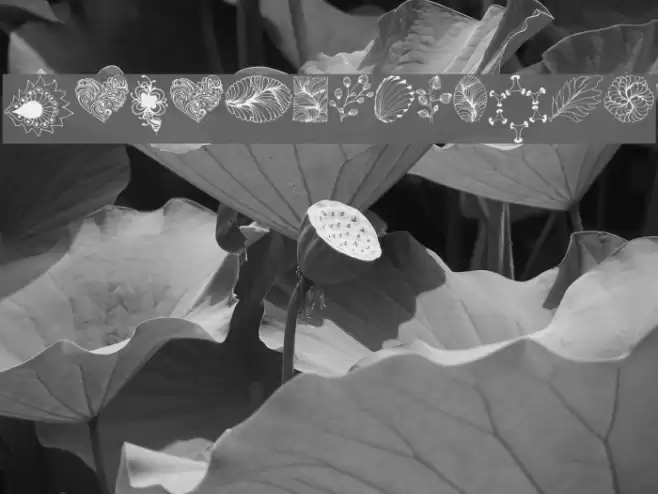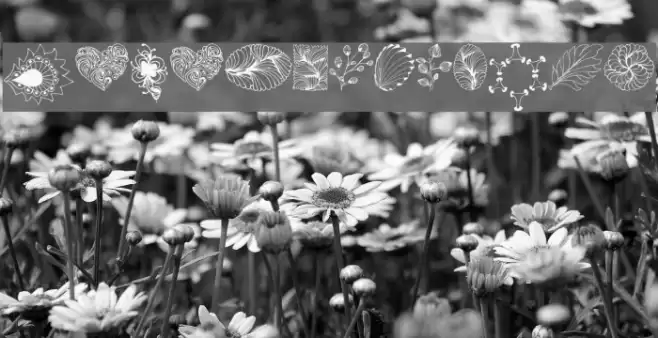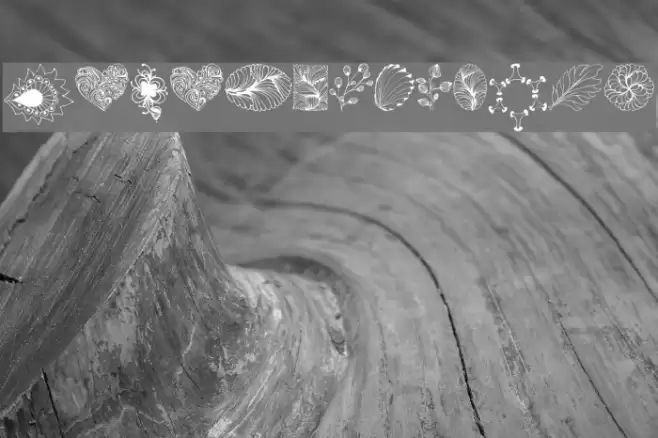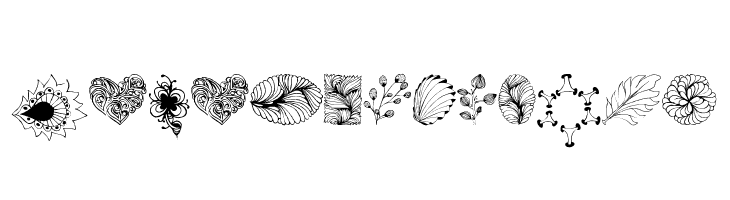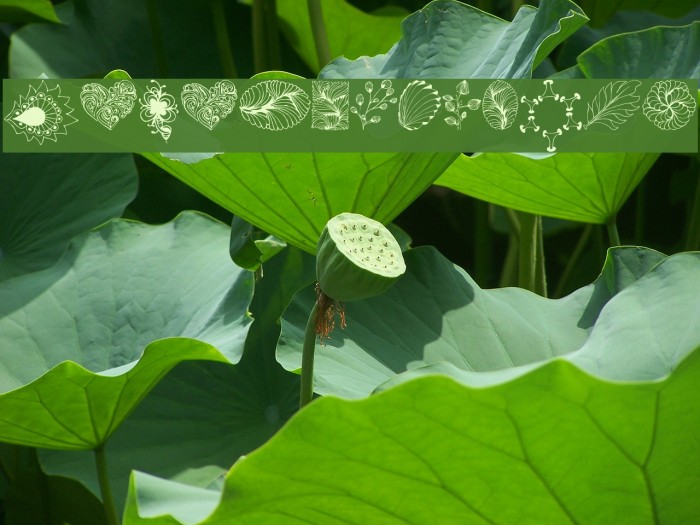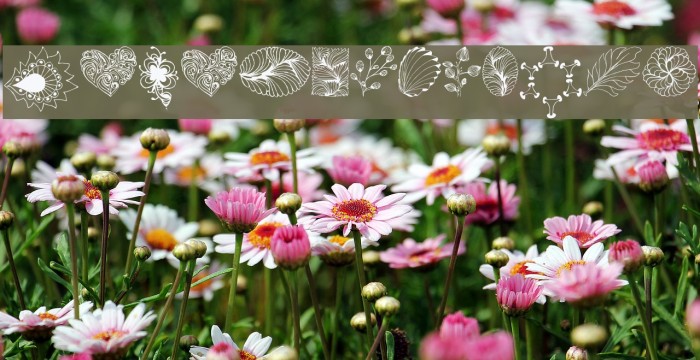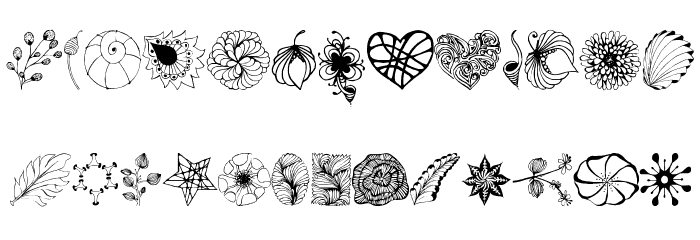
DigiStampsOne Font
DigiStampsOne Description
A decorative dingbat set featuring hand-drawn botanical and abstract motifs, including flowers, leaves, shells, hearts, and whimsical patterns, rendered in fine black lines with intricate detailing.
Hand-drawn botanical and abstract dingbat collection from Uncategorized fonts.
- Proposed Projects: Scrapbooking, invitations, greeting cards, decorative borders, digital stamps, craft projects.
- Overall Style: Decorative, Hand-drawn, Whimsical
- Use Case: Decorative elements, embellishments, digital stamps, crafts